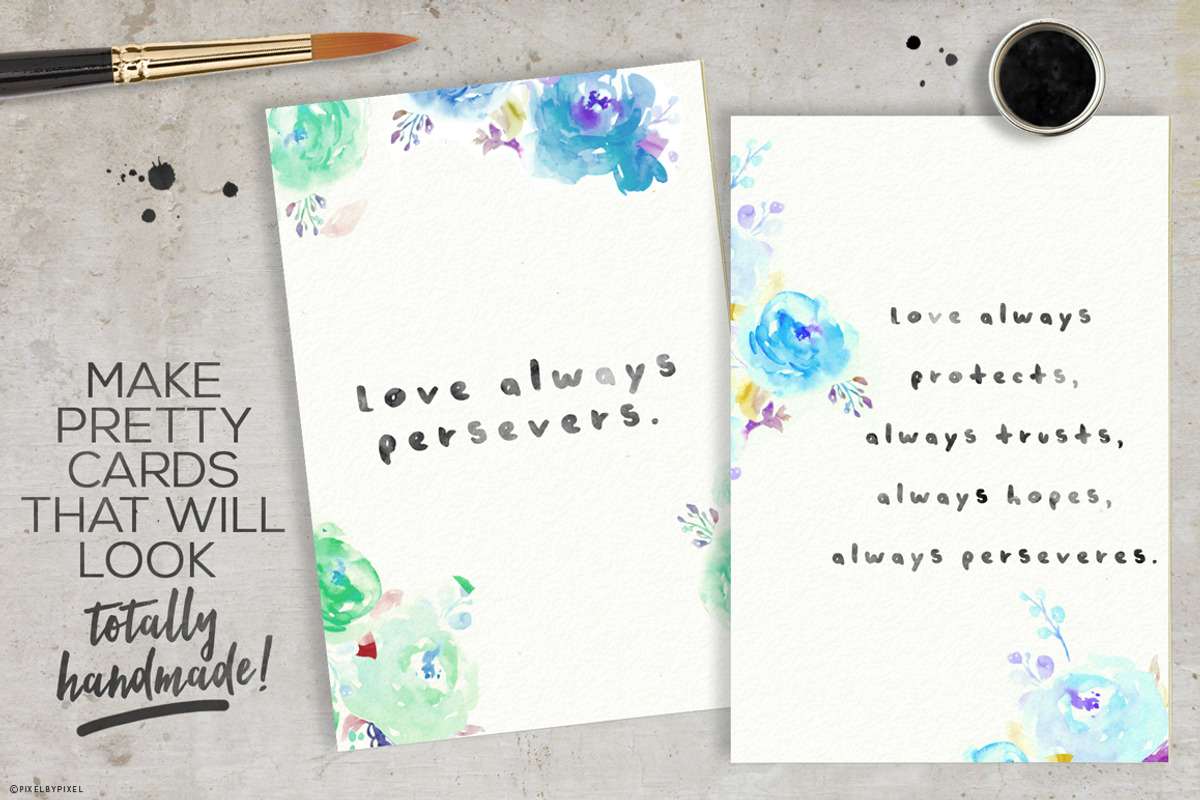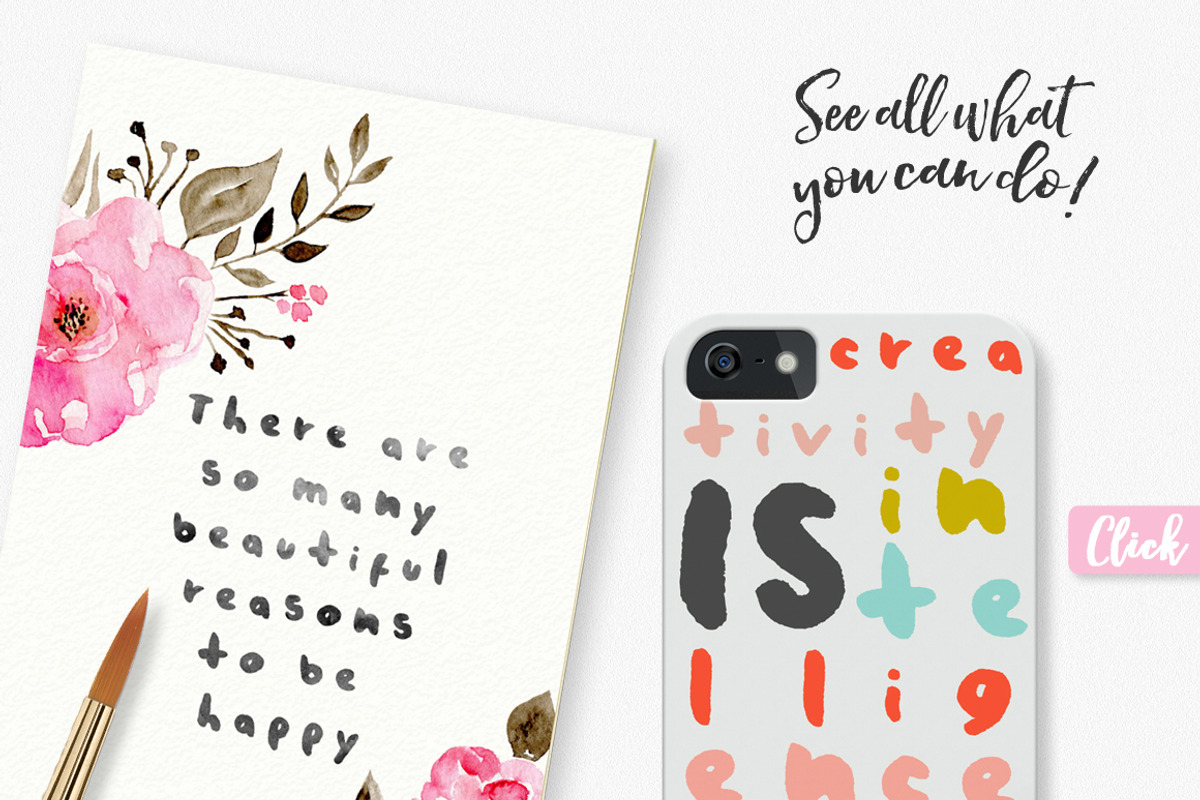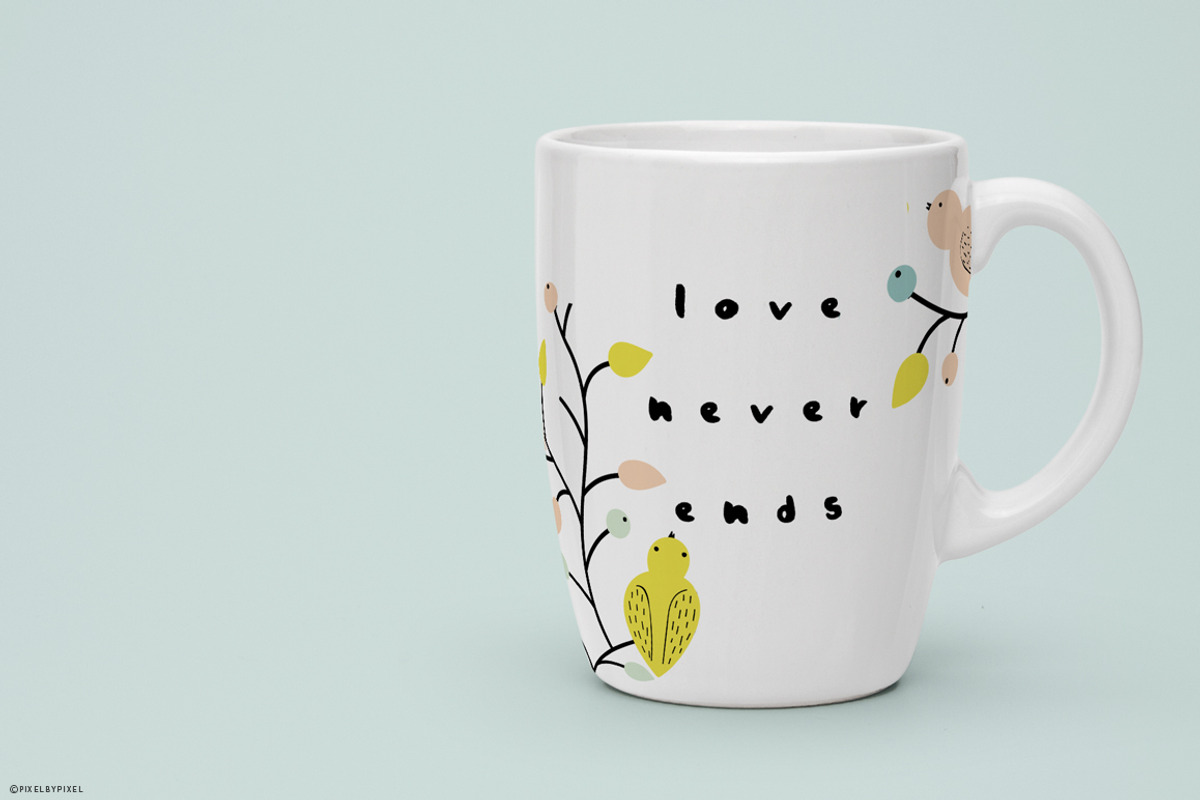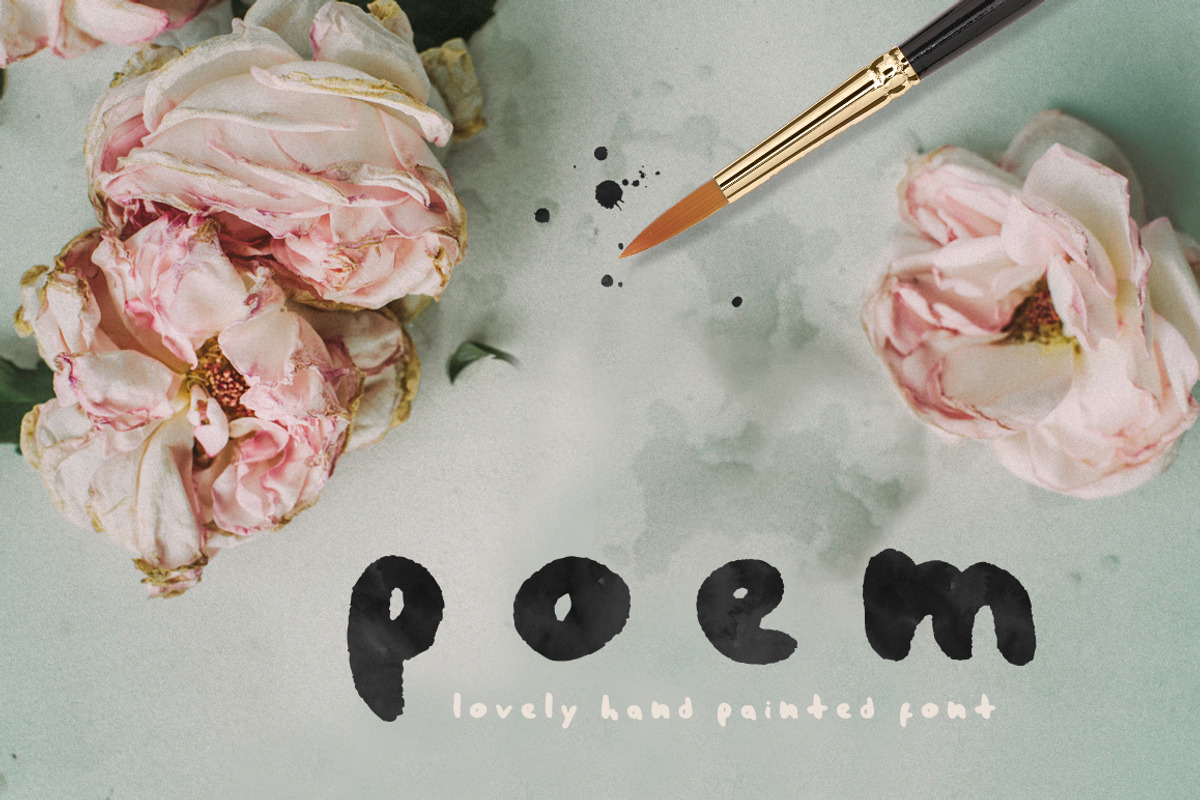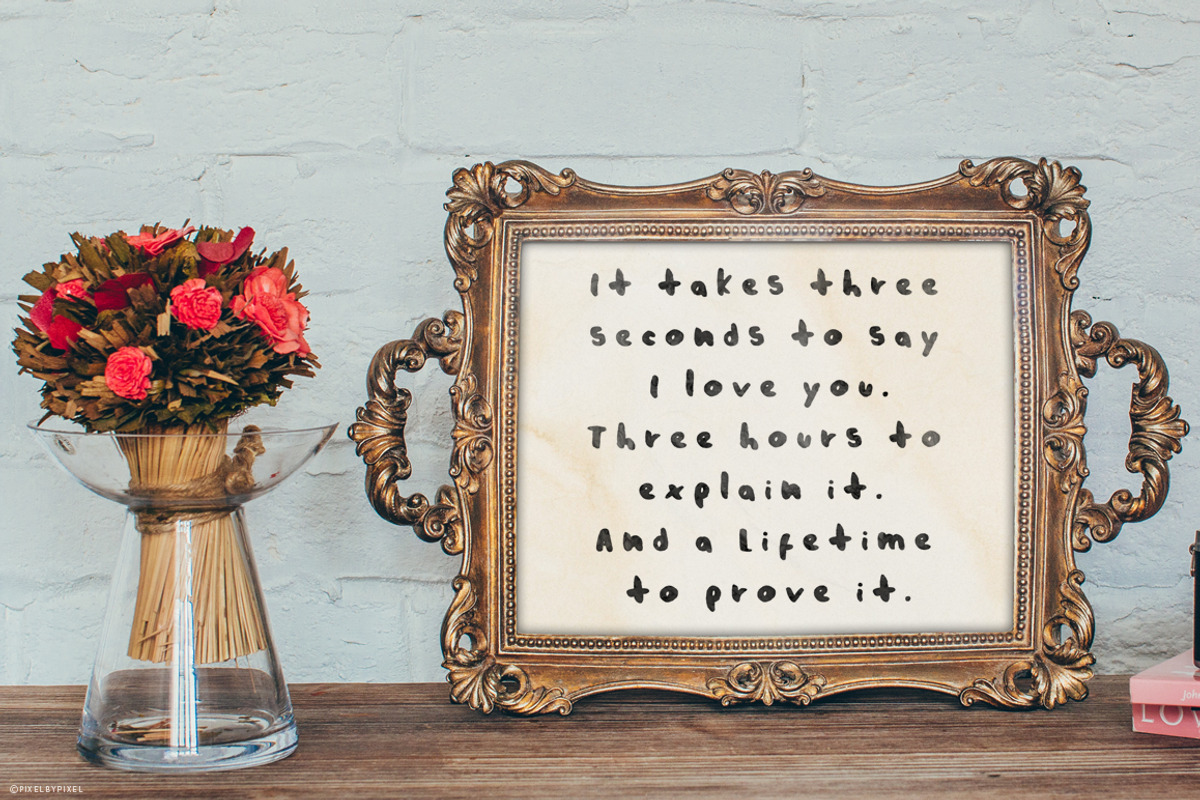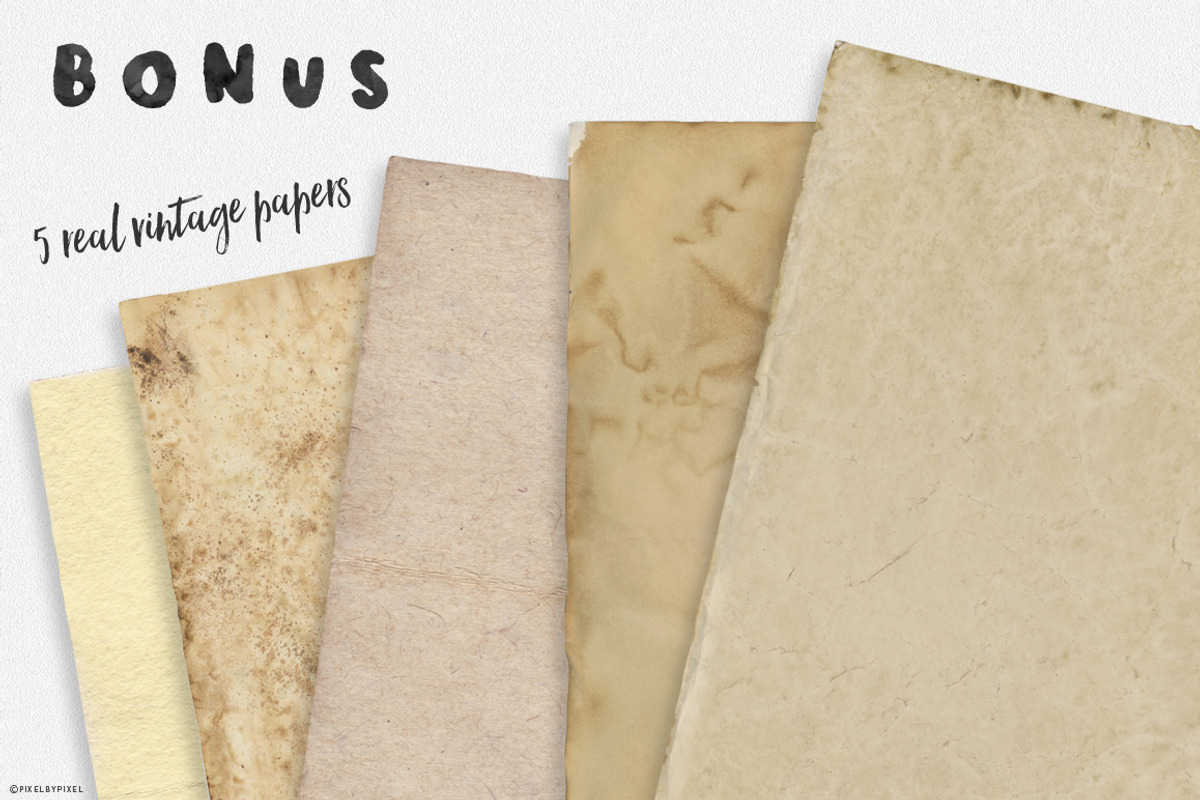
Poem Brush Font
Poem Brush Font by pixelcolours is a font selected for branding, posters, packaging, typography.
Poem Brush Font by pixelcolours fits naturally into Branding, posters, packaging, typography.